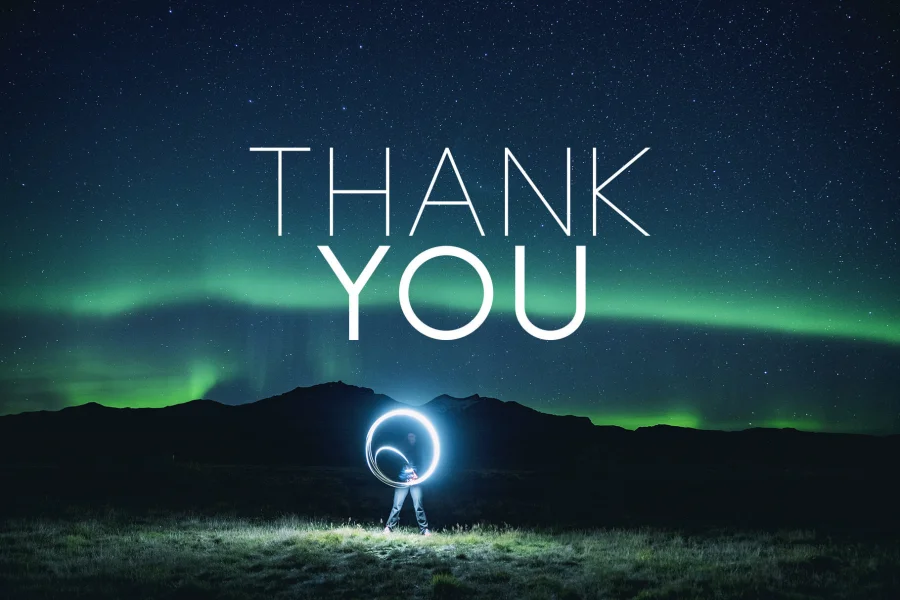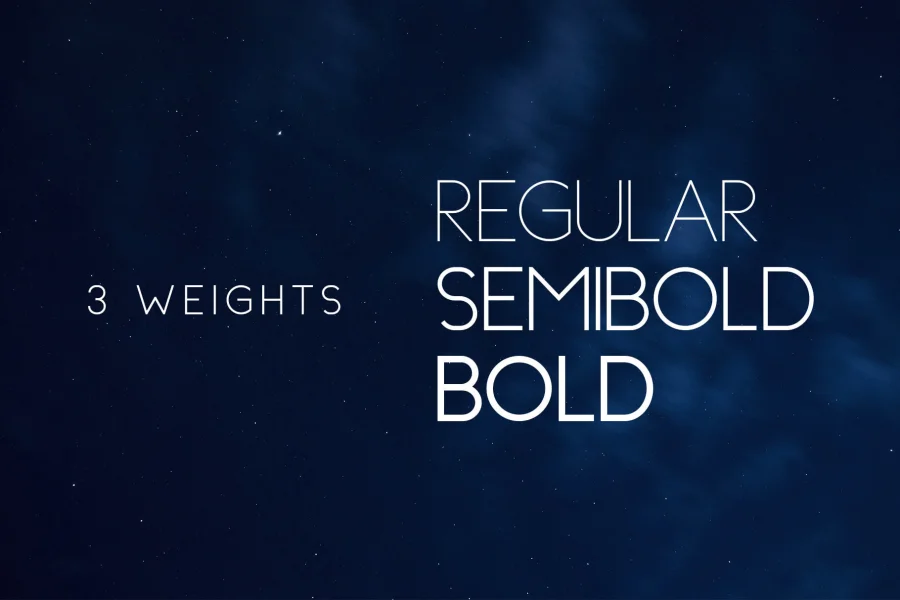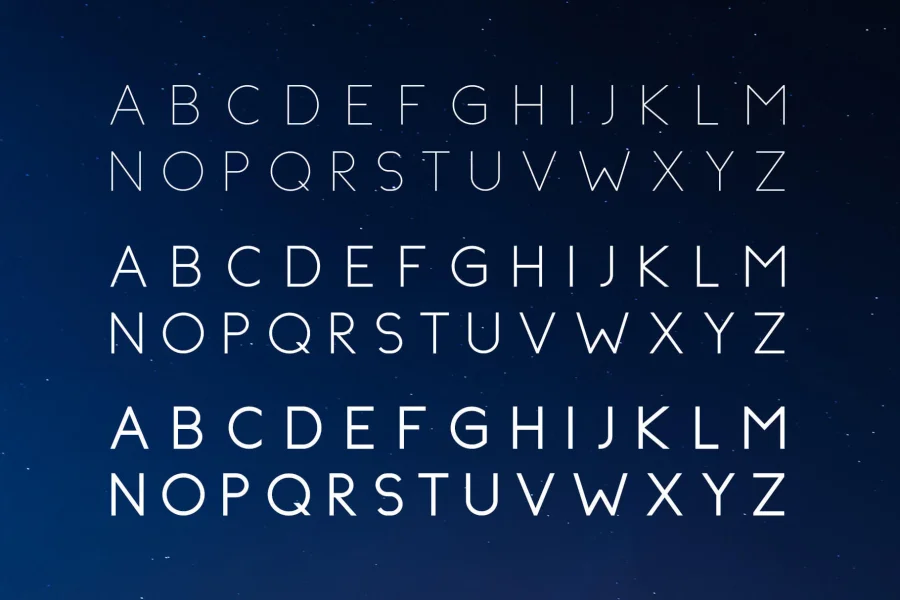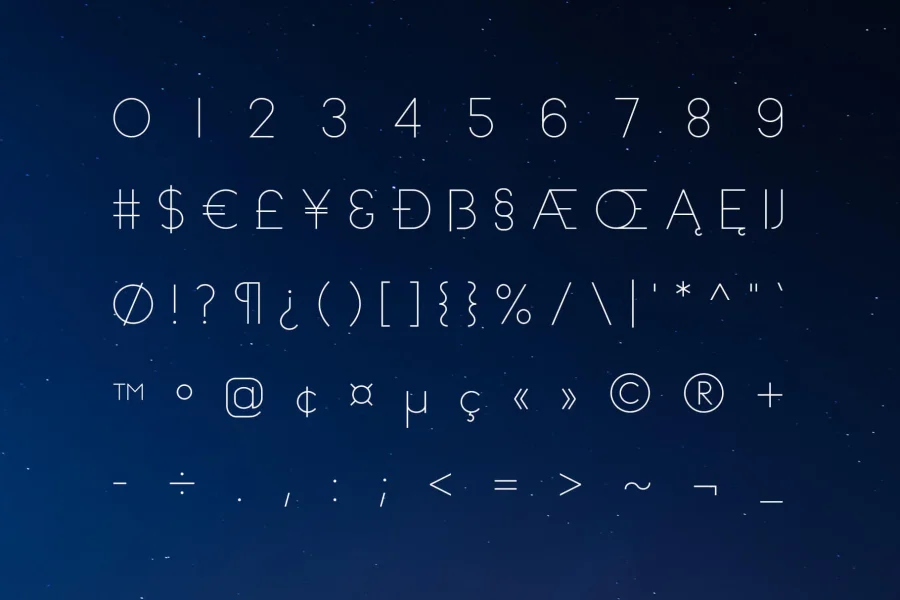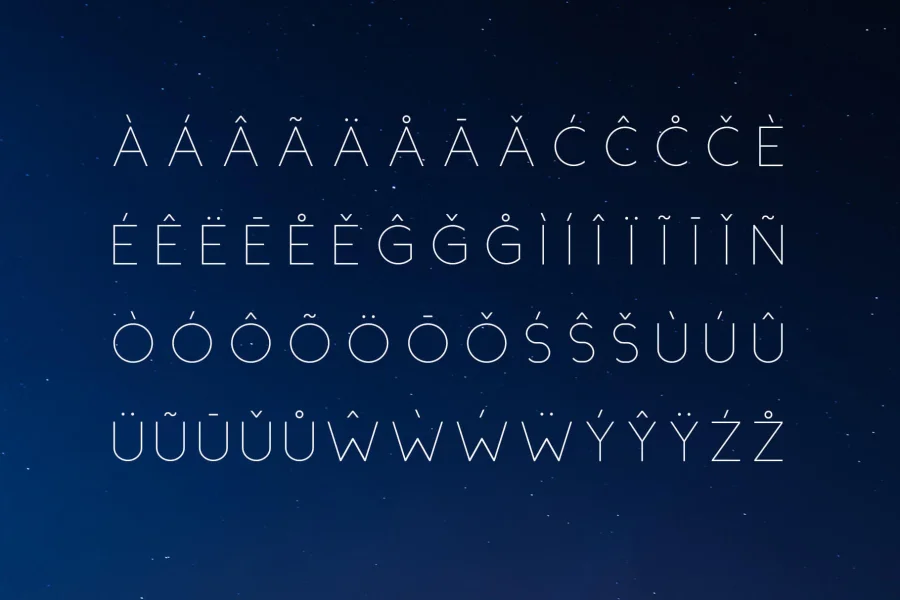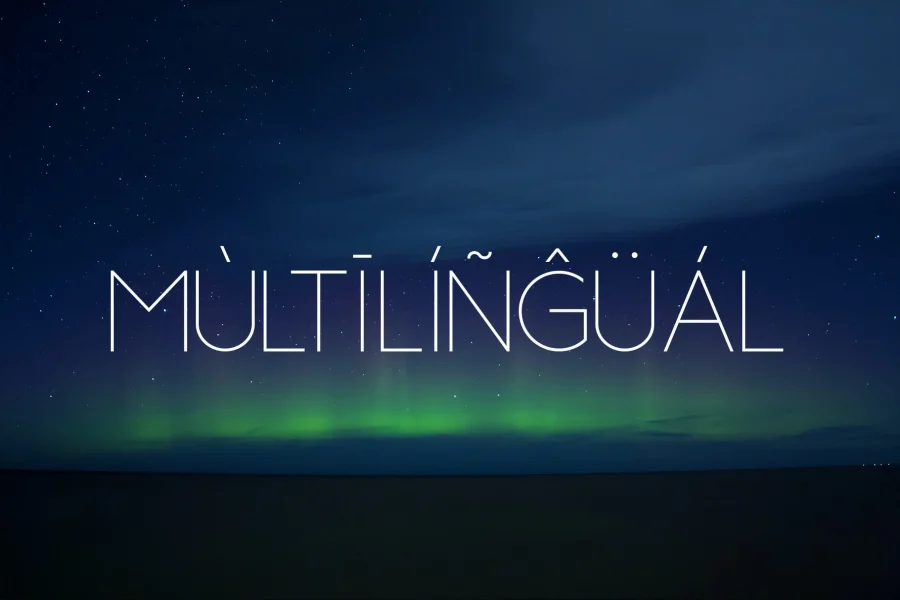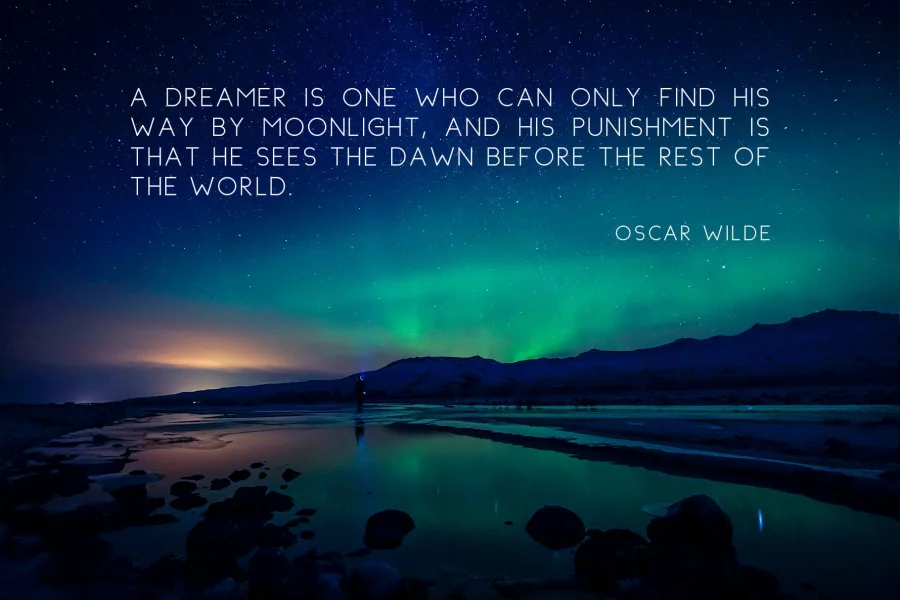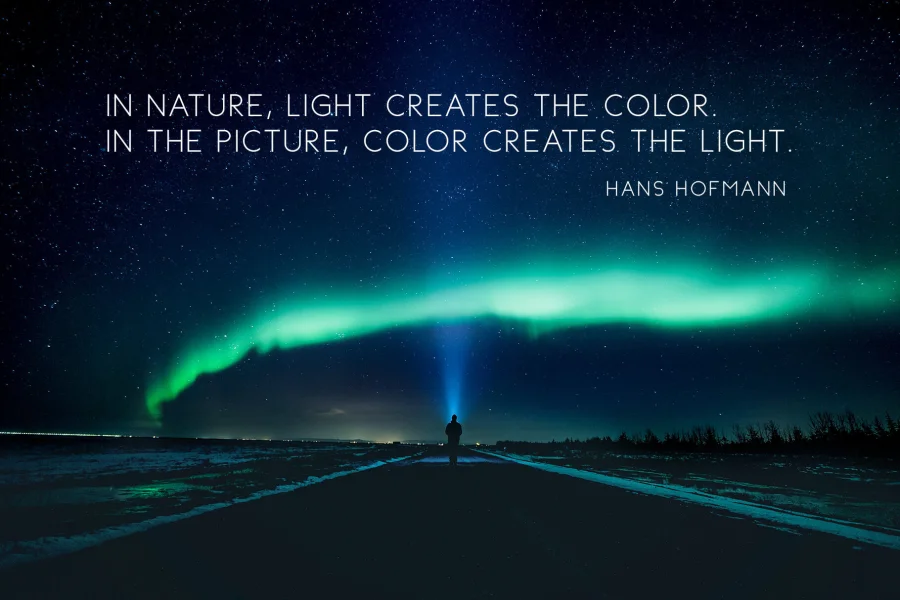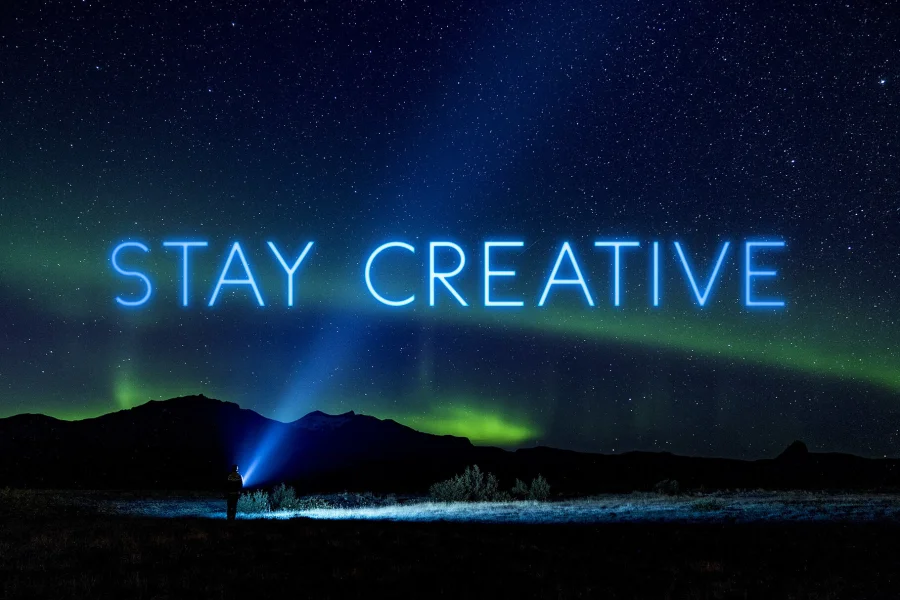
Introducing Topazia - Sans Serif Font
Topazia is a strong and clean sans serif font. It's a versatile font family designed for strong, classic branding. Topazia works great in any branding, logos, magazines, videos, product packaging, website headers, clothing designs and much more.